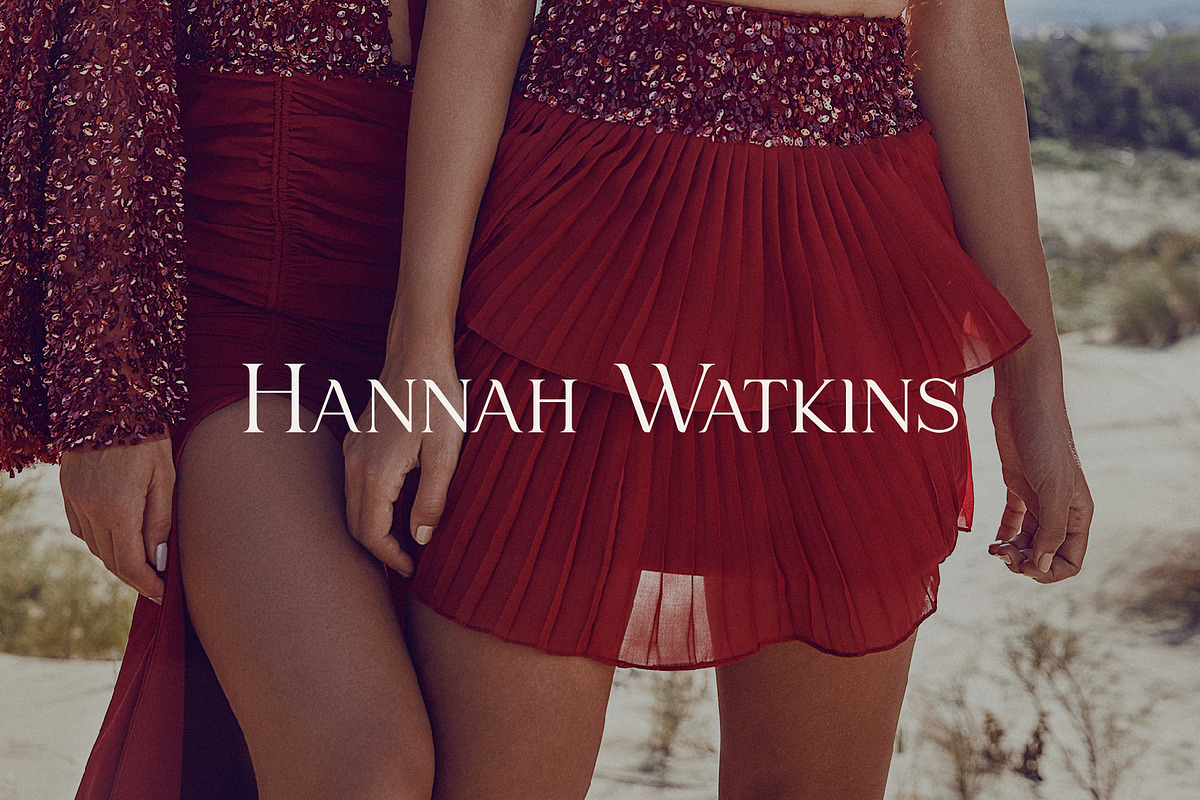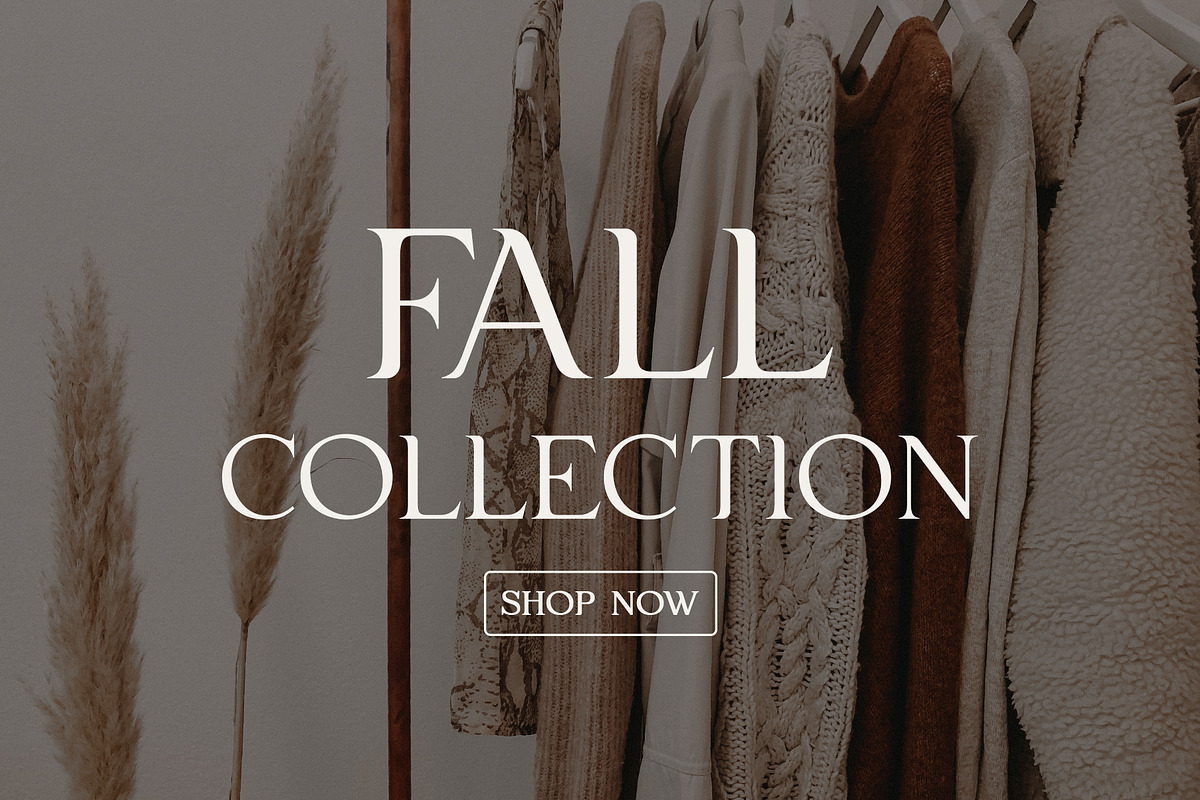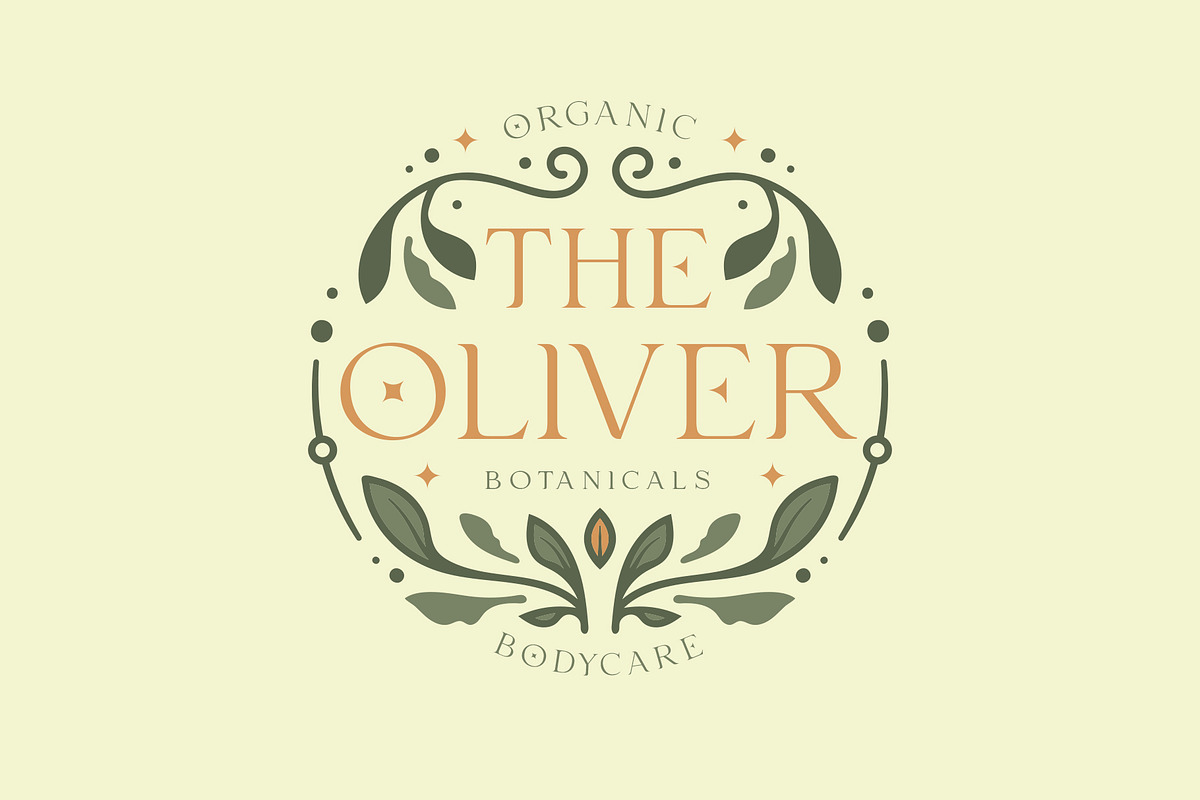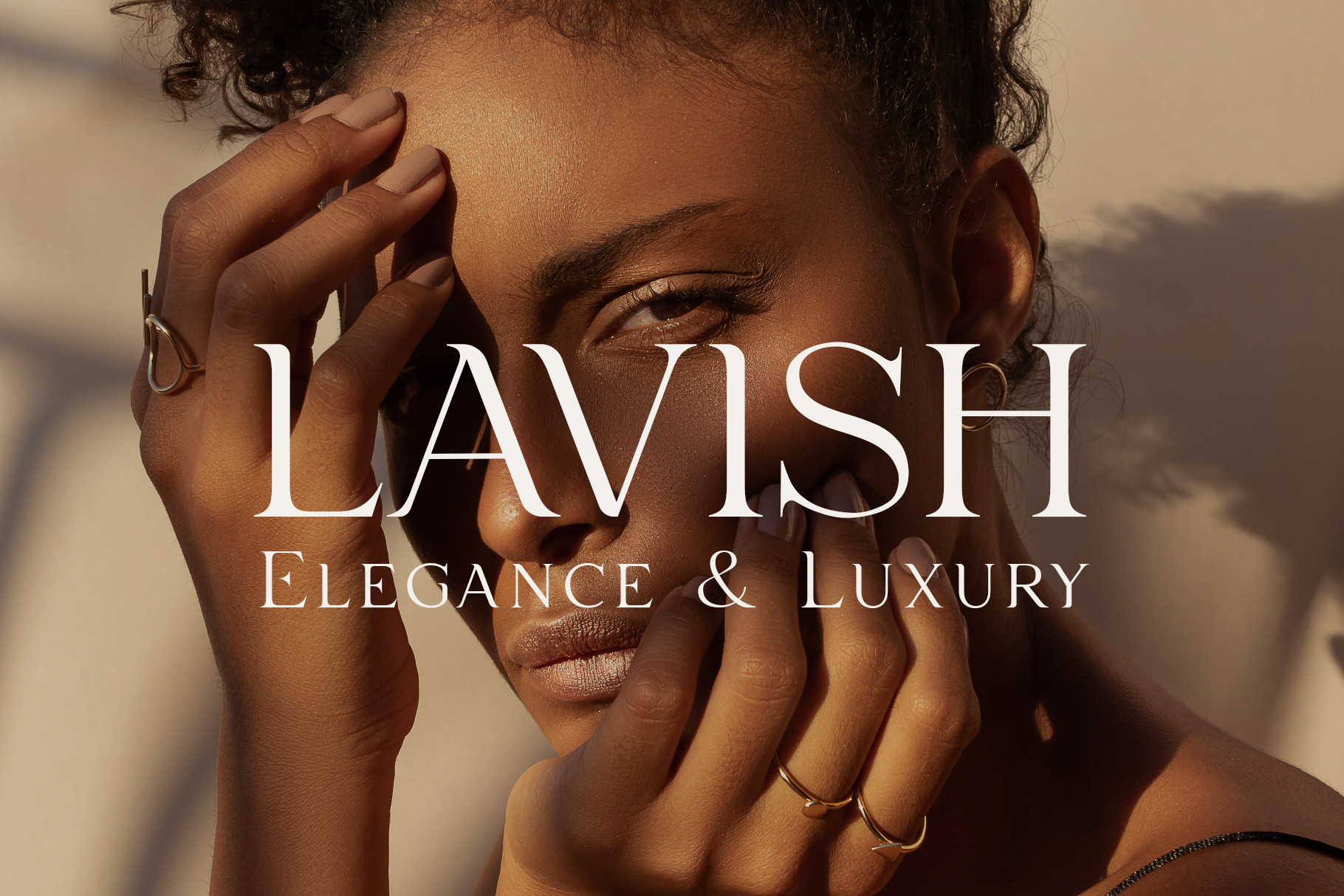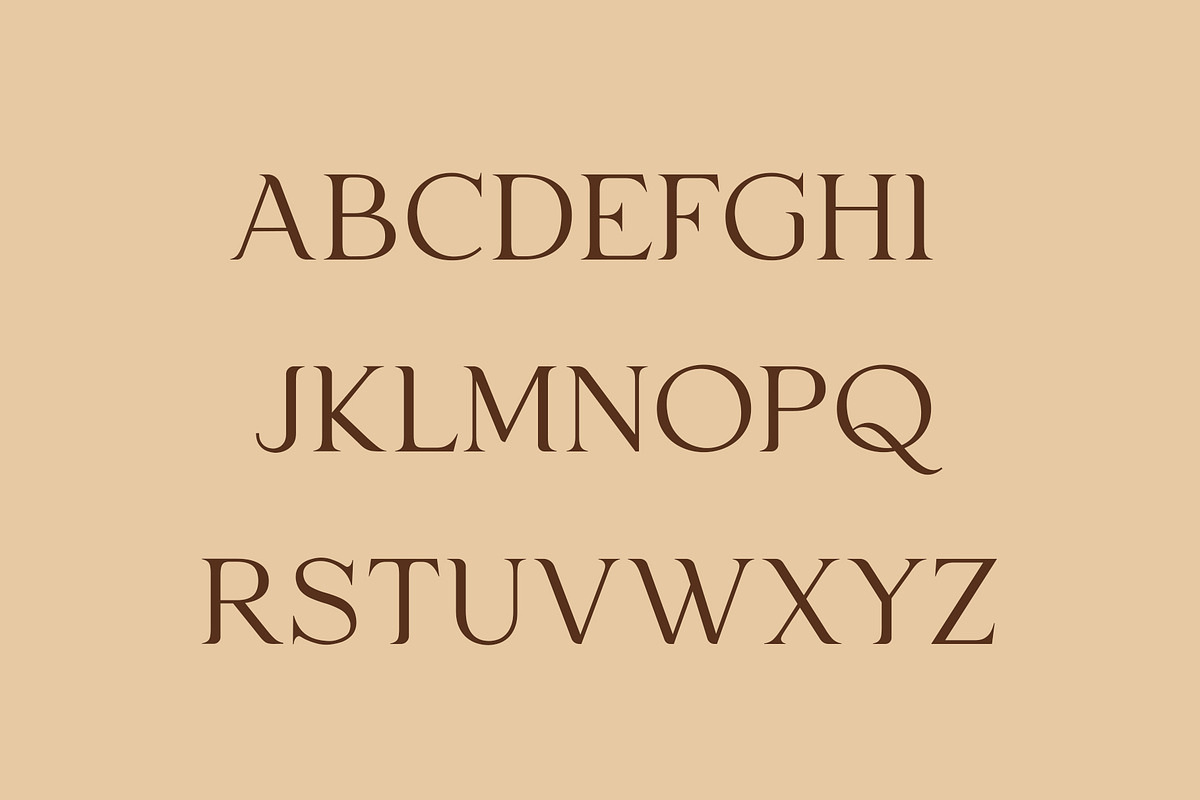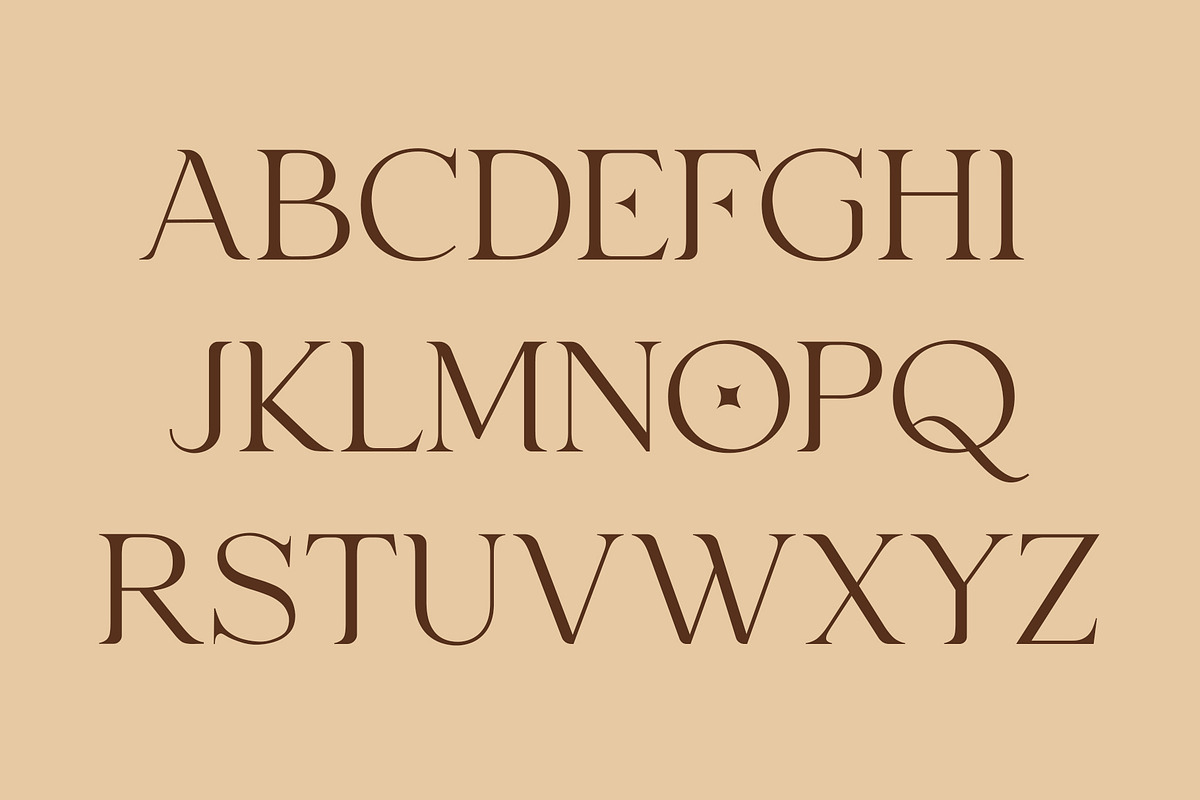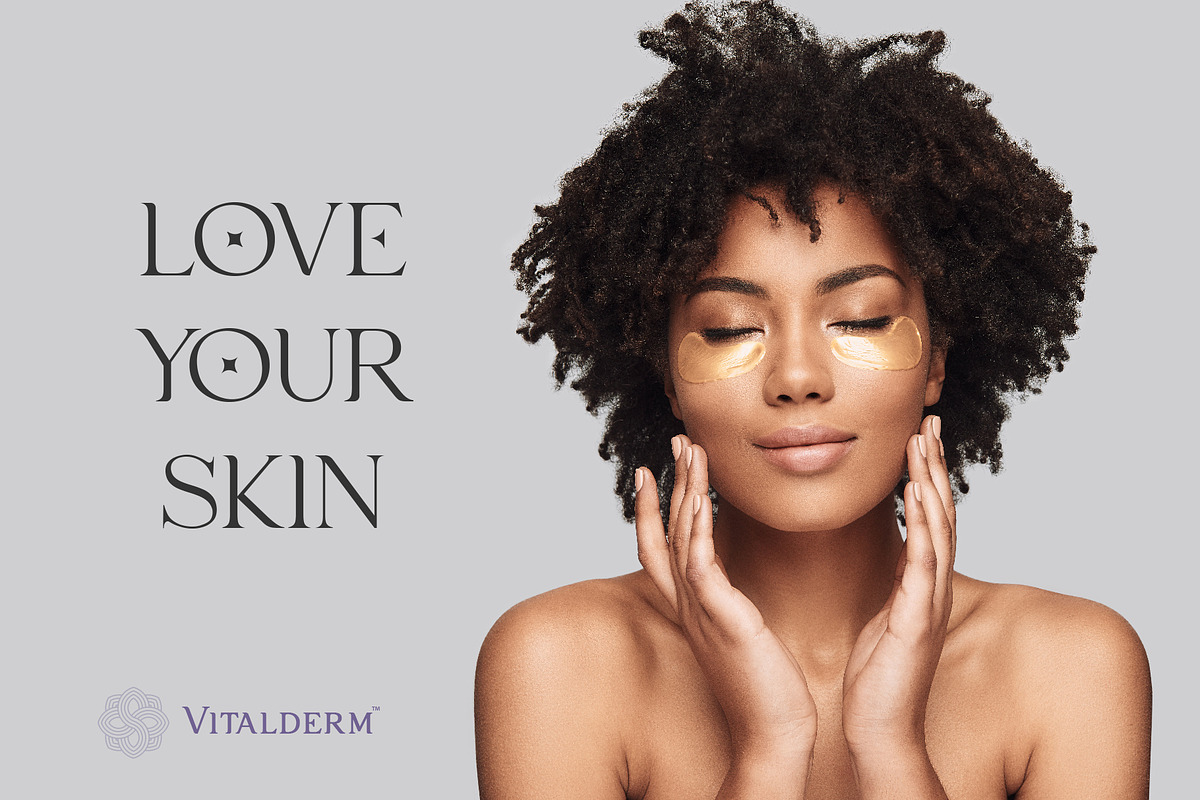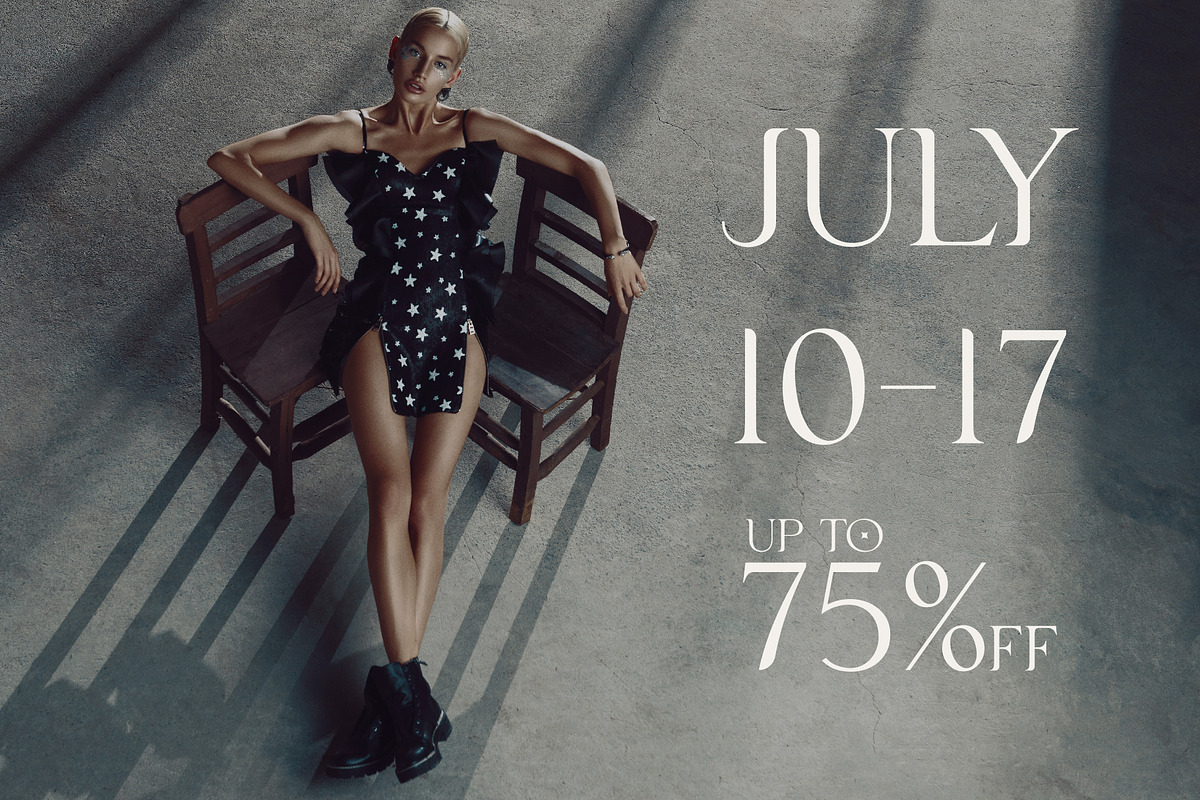
Lavish - Elegant Typeface (Updated!)
Lavish is a sophisticated serif typeface specially designed for fashion-themed projects. This typeface is perfectly suitable for creating elegant, chic, lifestyle design such as logos, headlines, wedding cards, books, packaging, stationery, labels, magazines, and more.
If your aim is to add a premium/luxury feel to your project, then Lavish is for you. Not only is the font elegant it's also timeless.